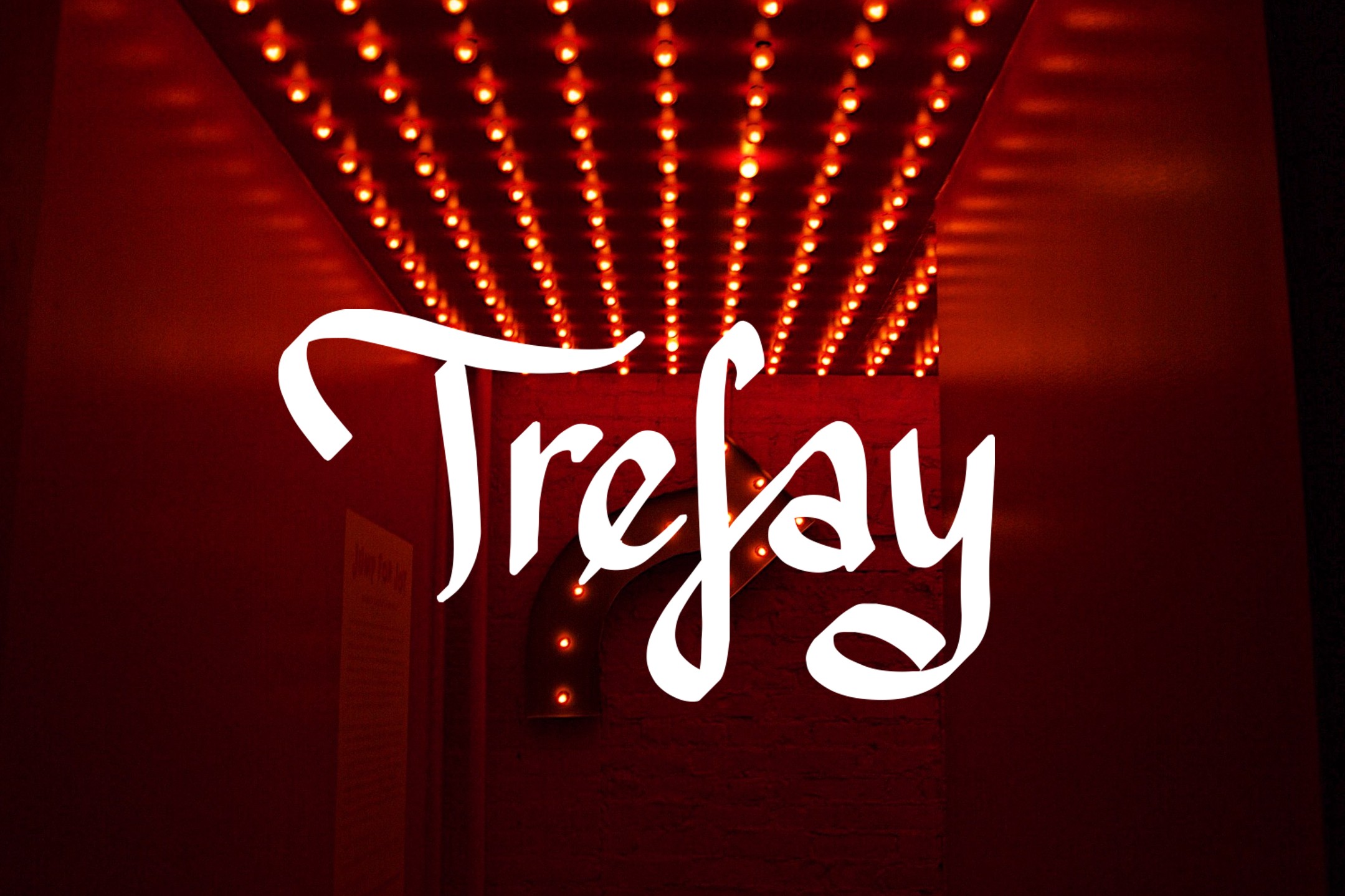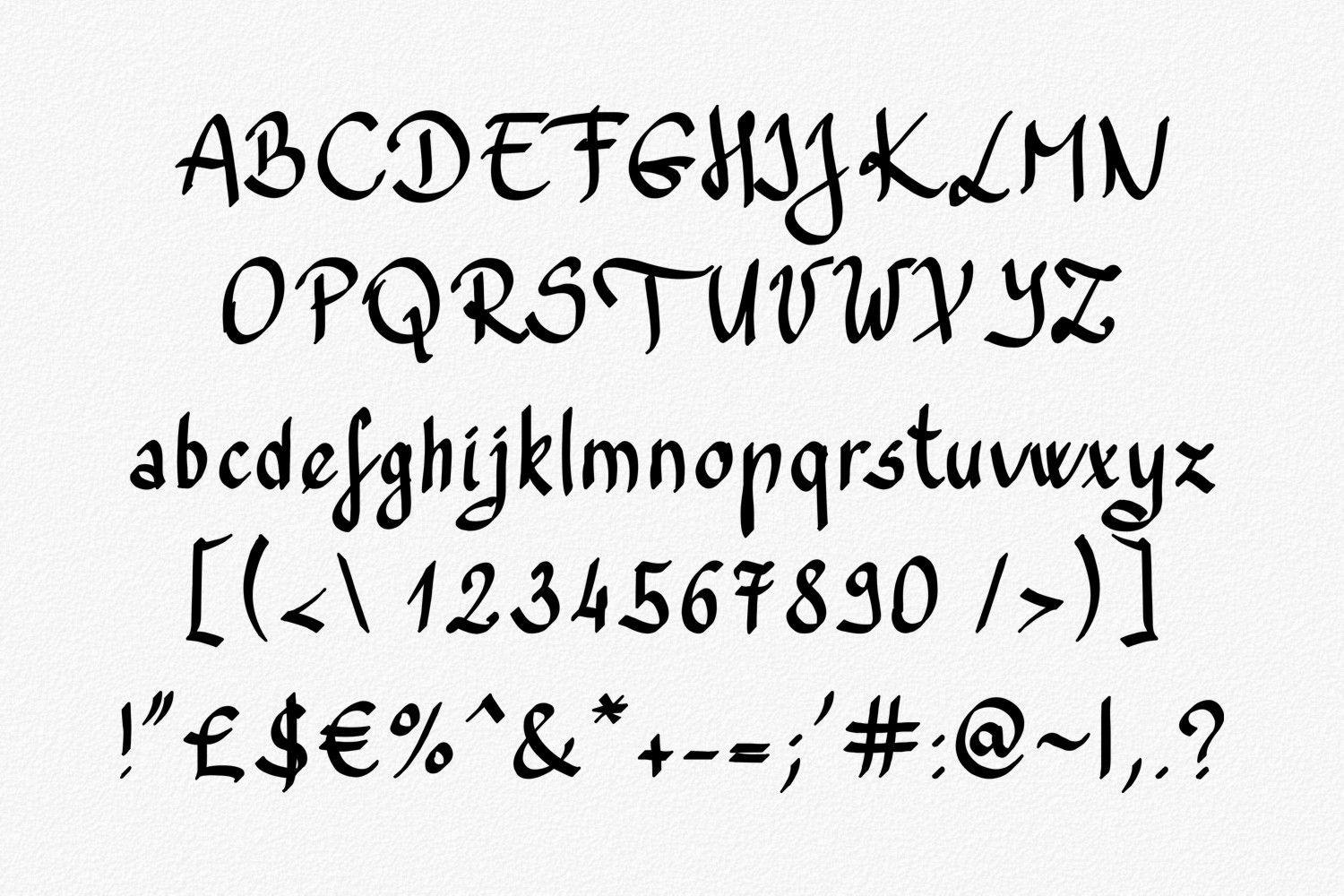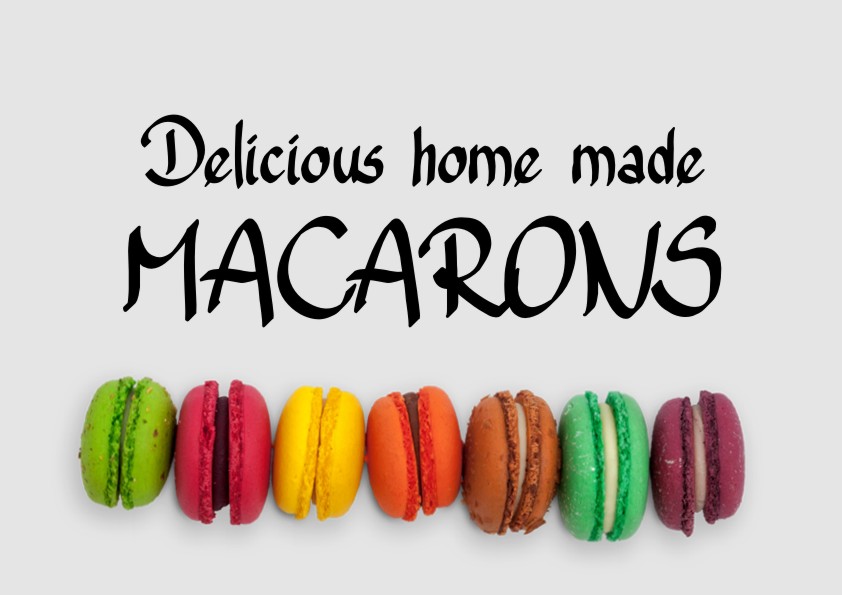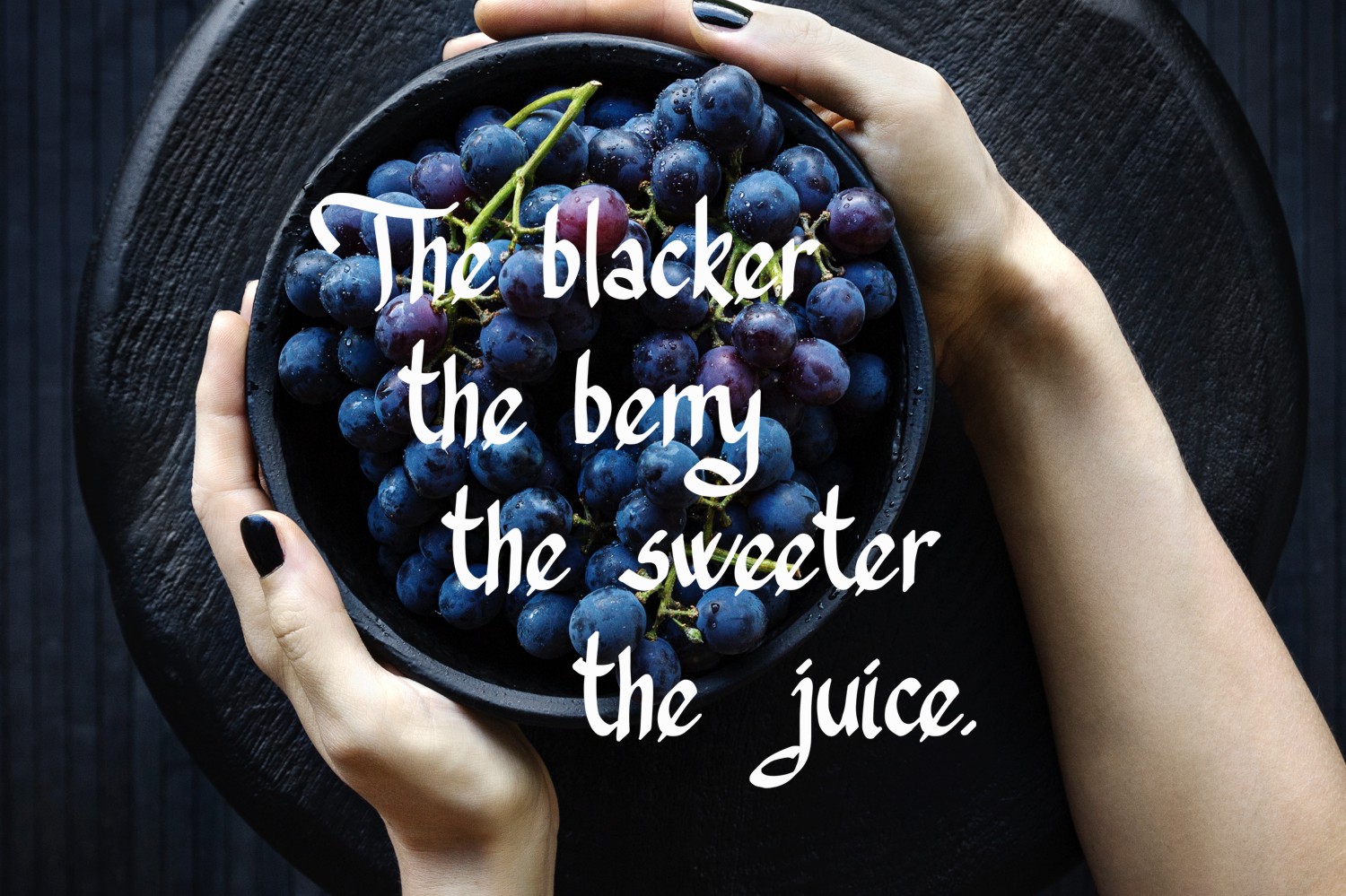
Trefay Font
About Trefay Font
Trefay is a handwritten marker font.
It’s great for titling, flyers, logos, packaging, corporate branding and much more.